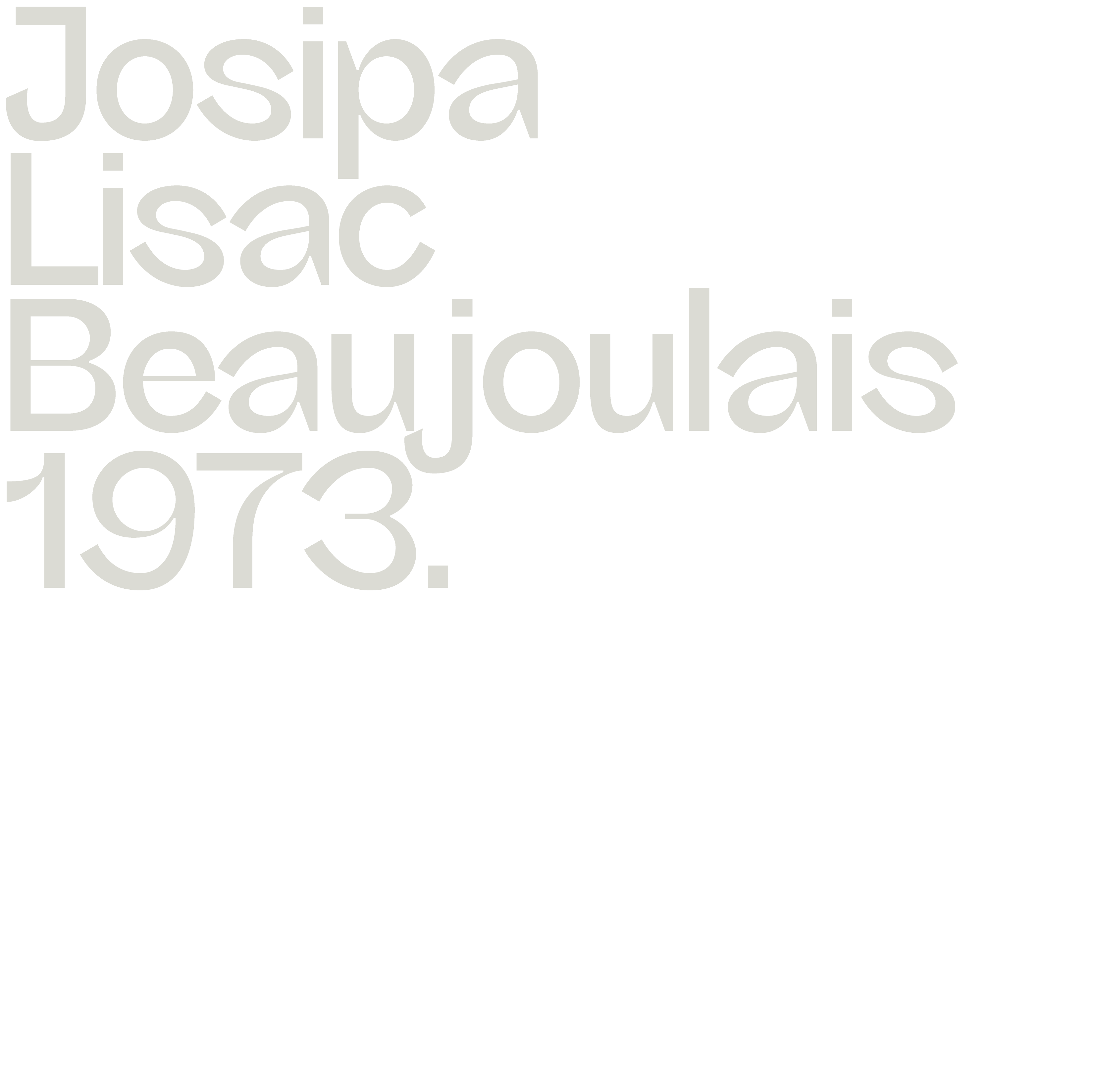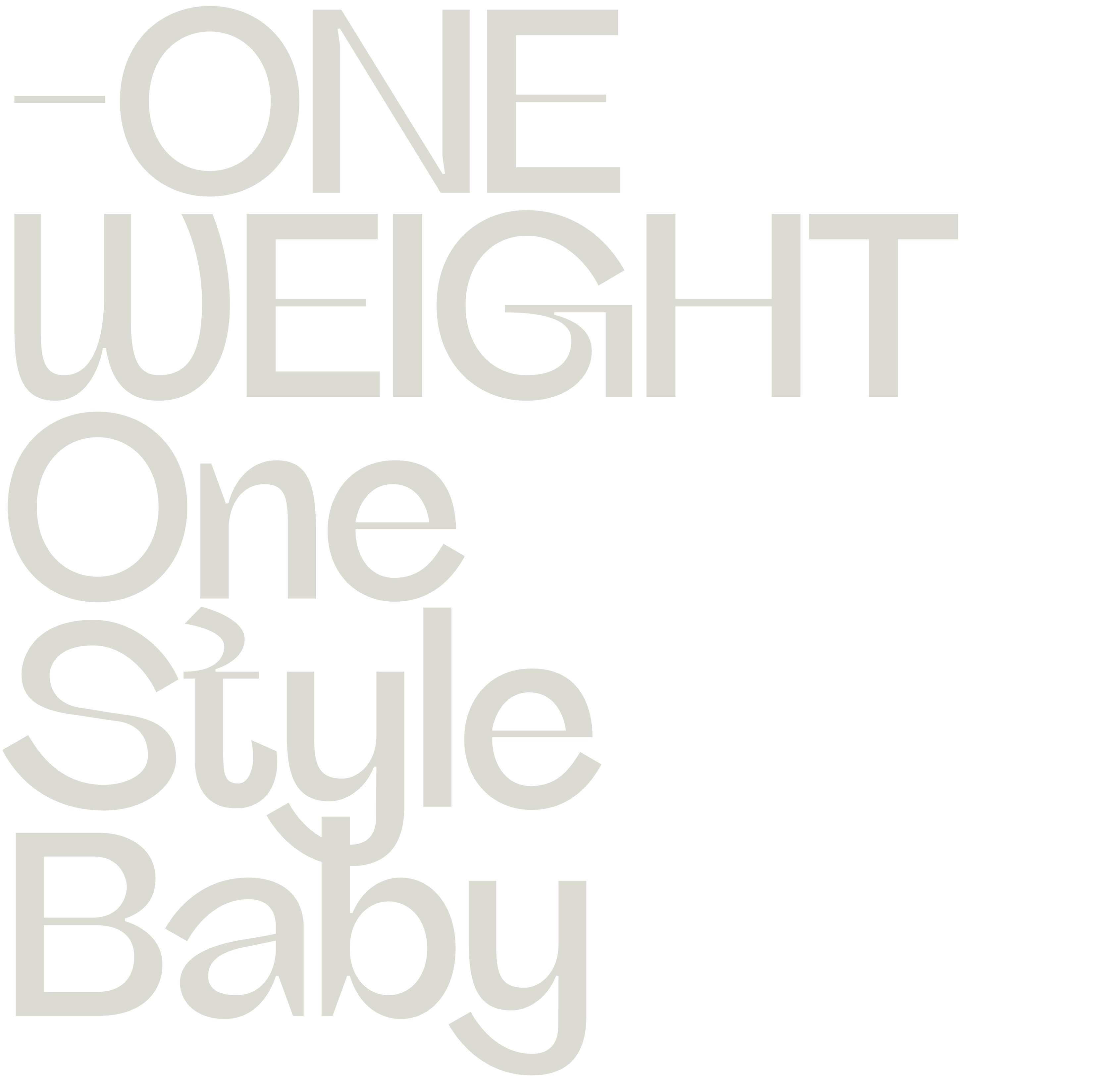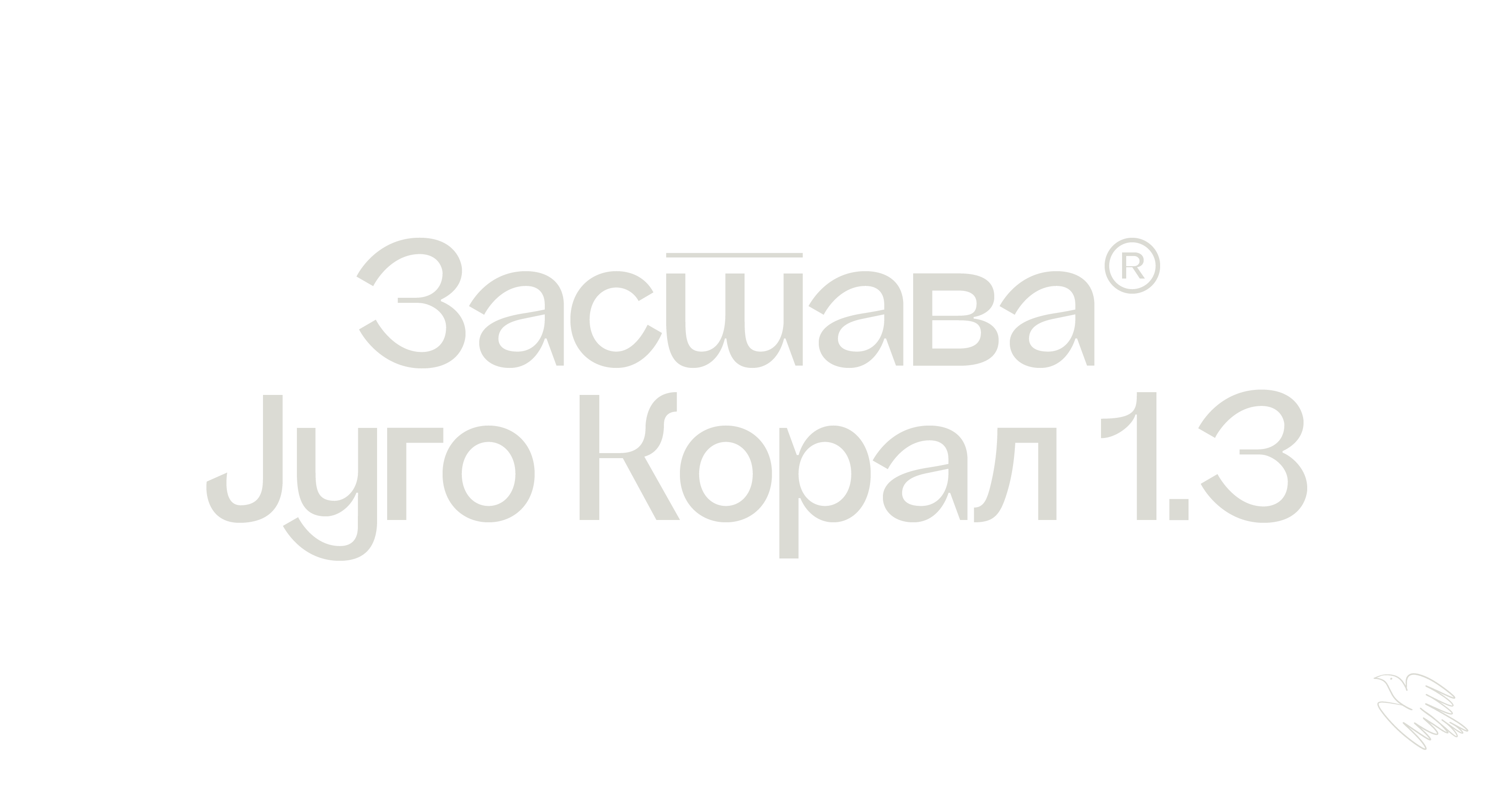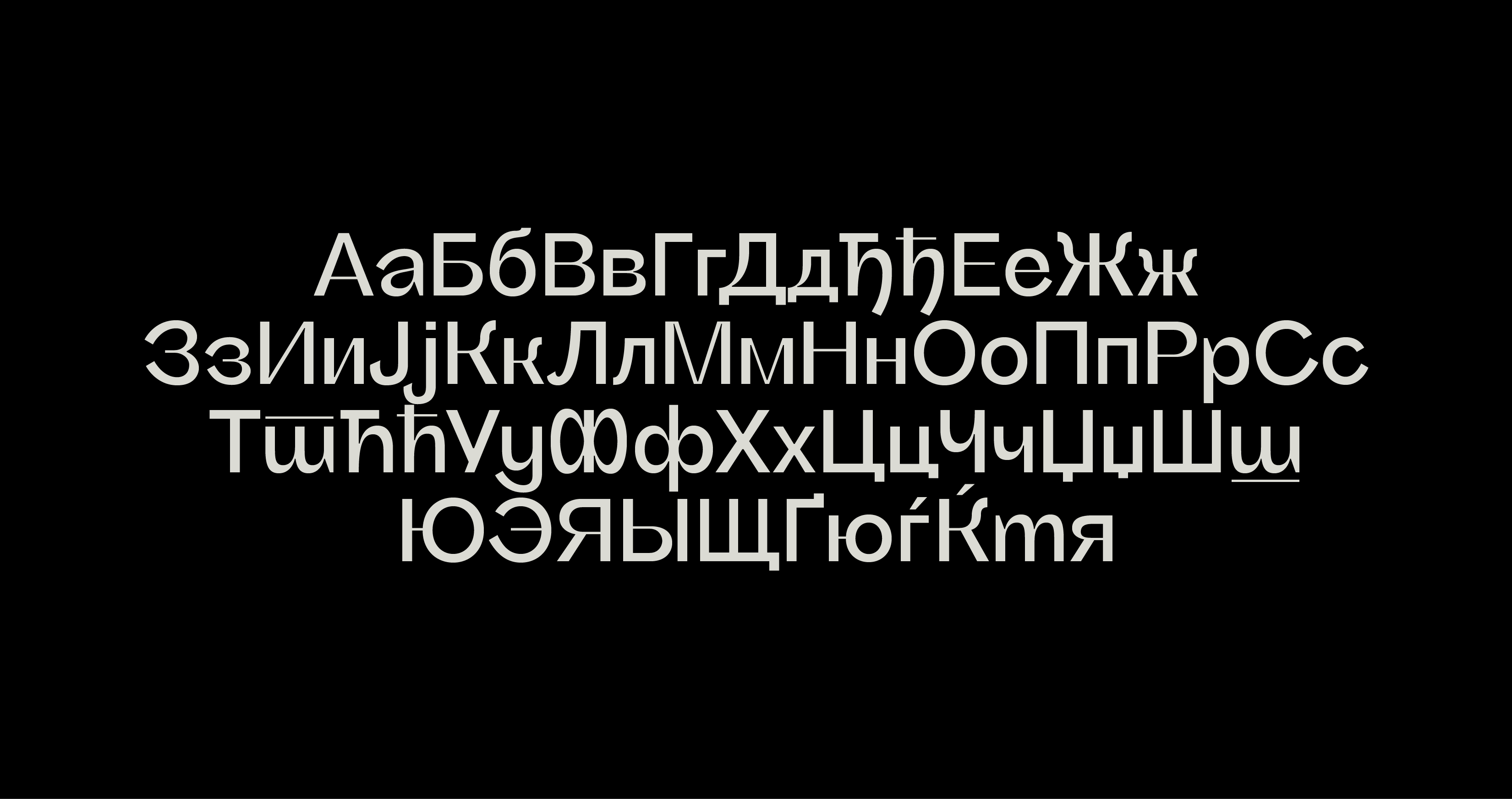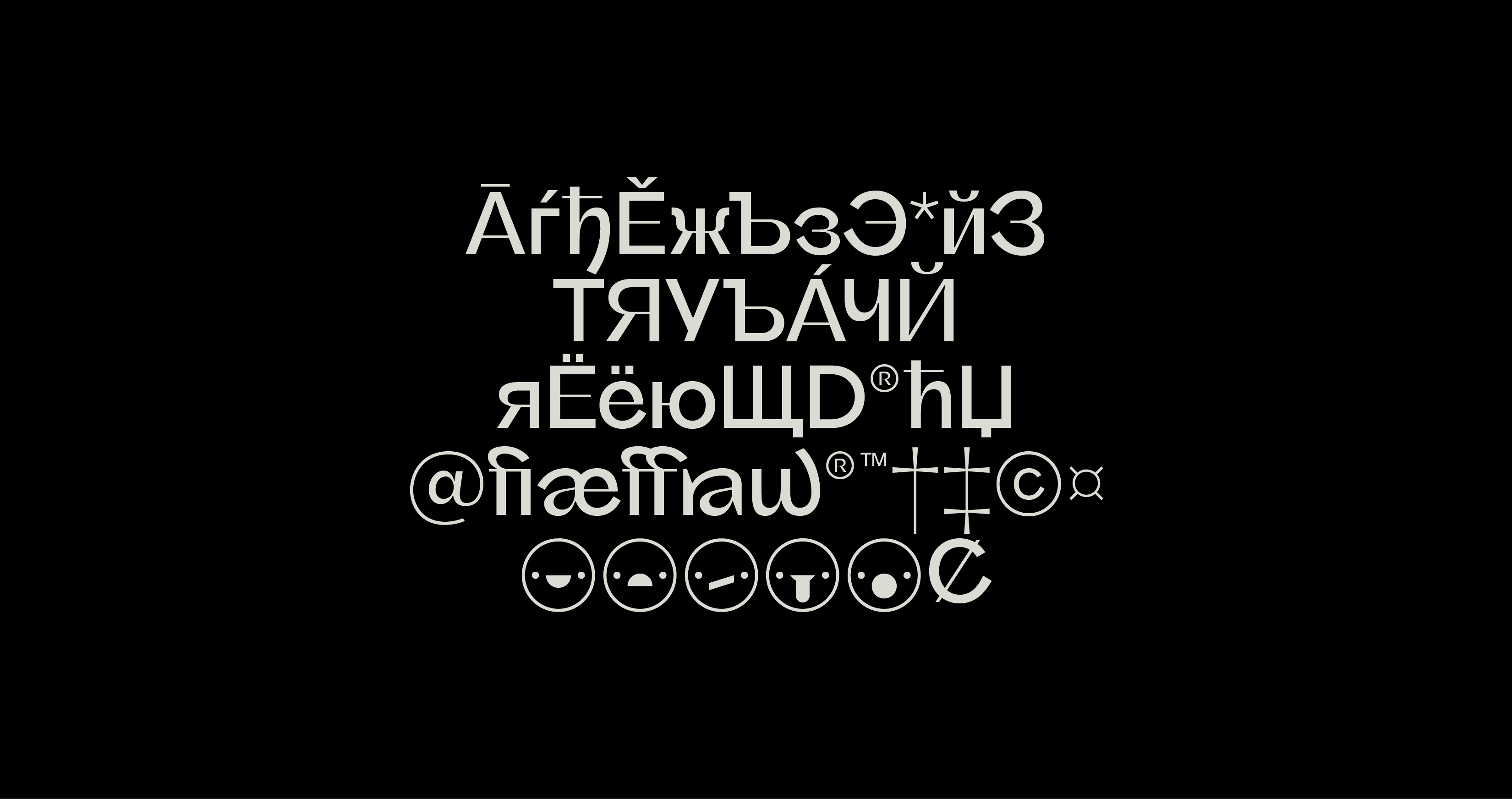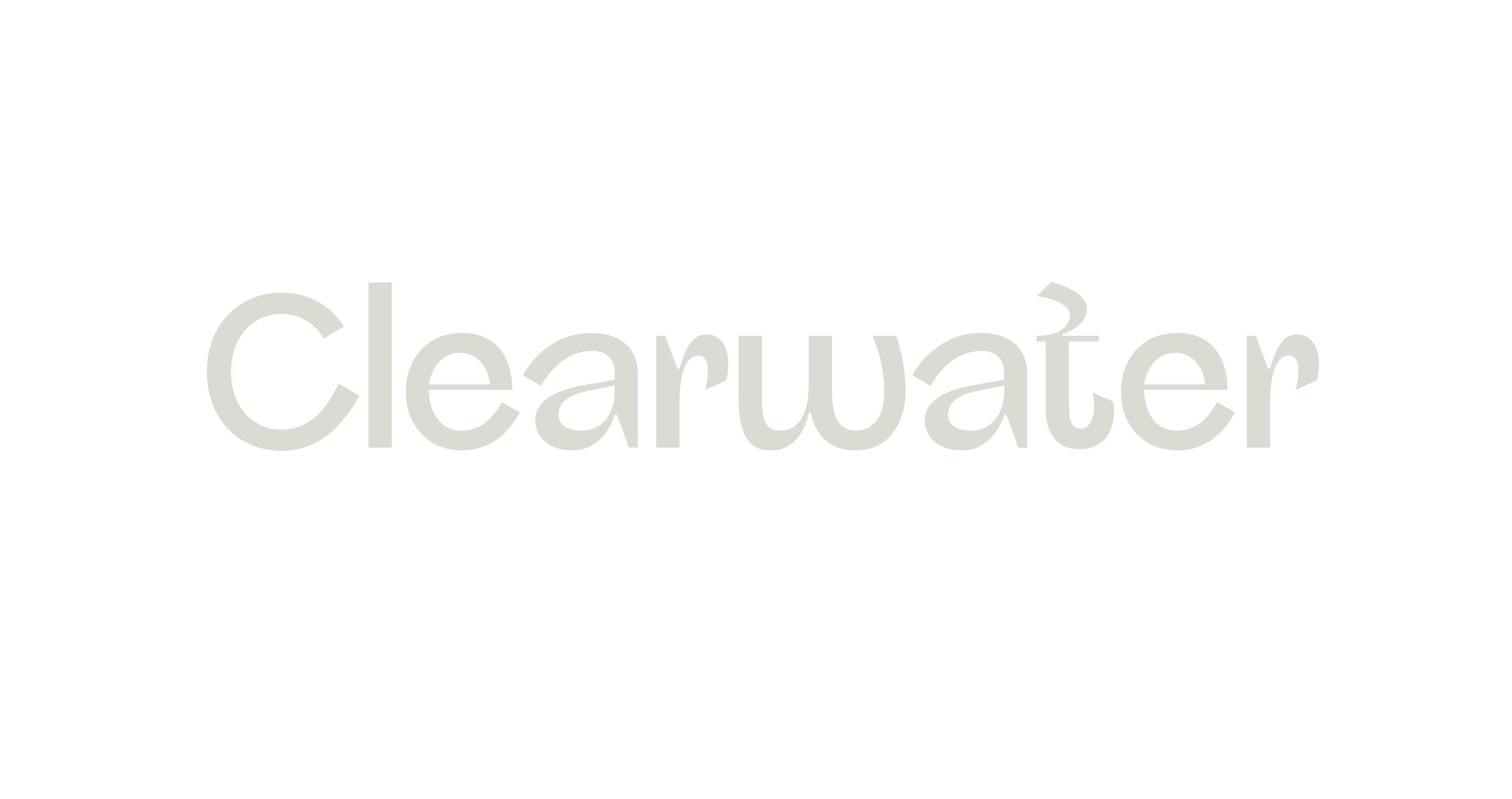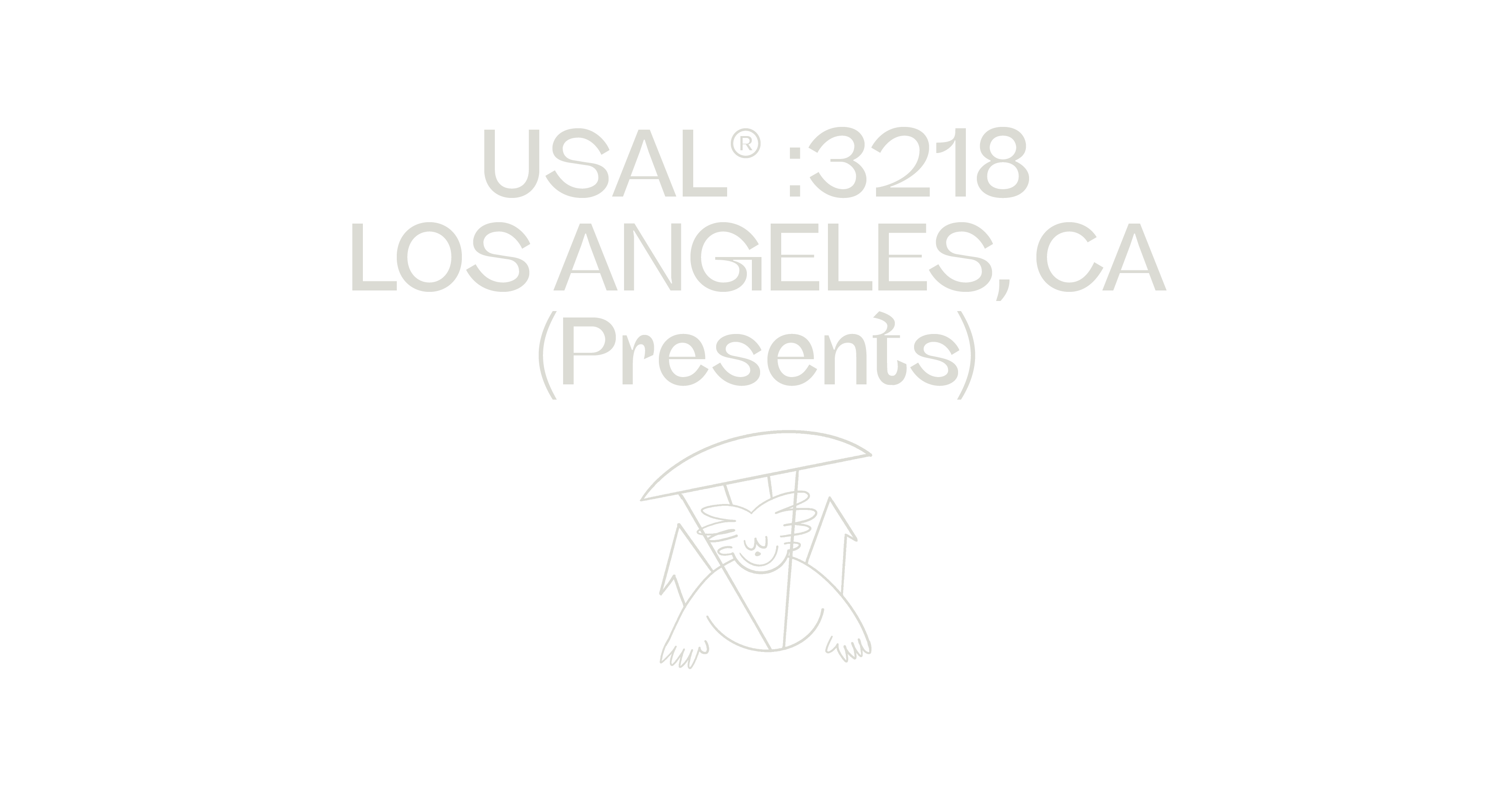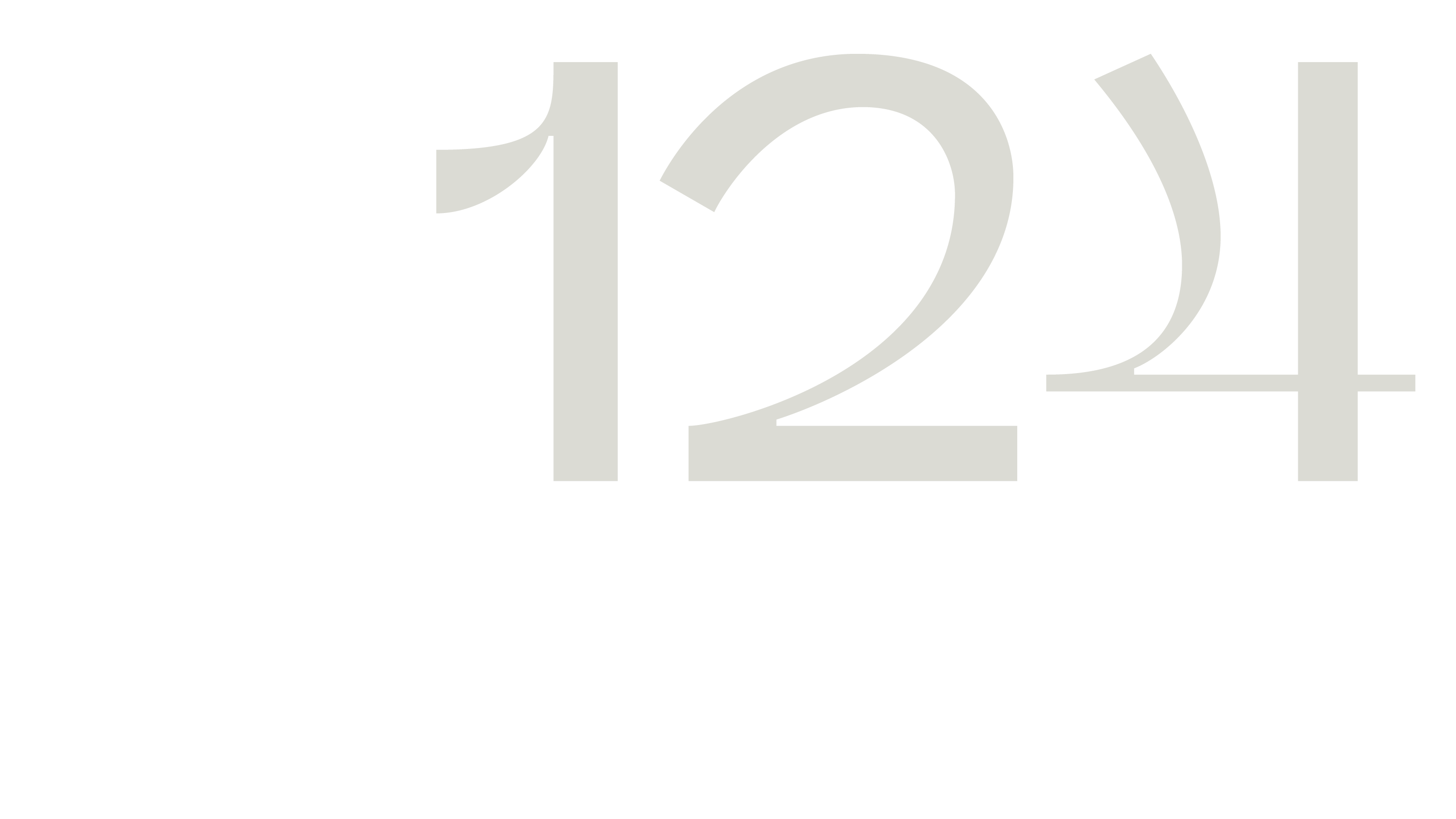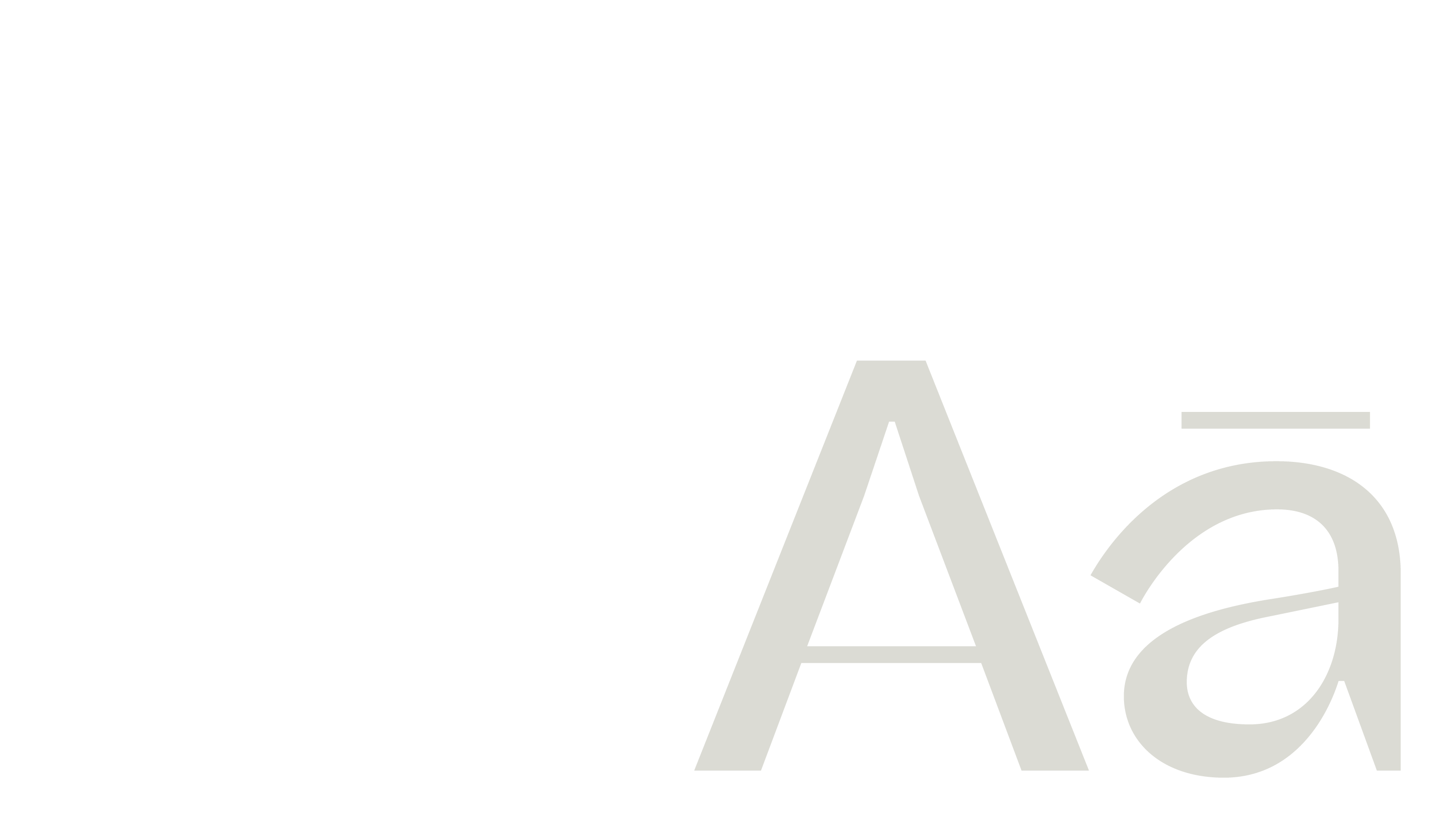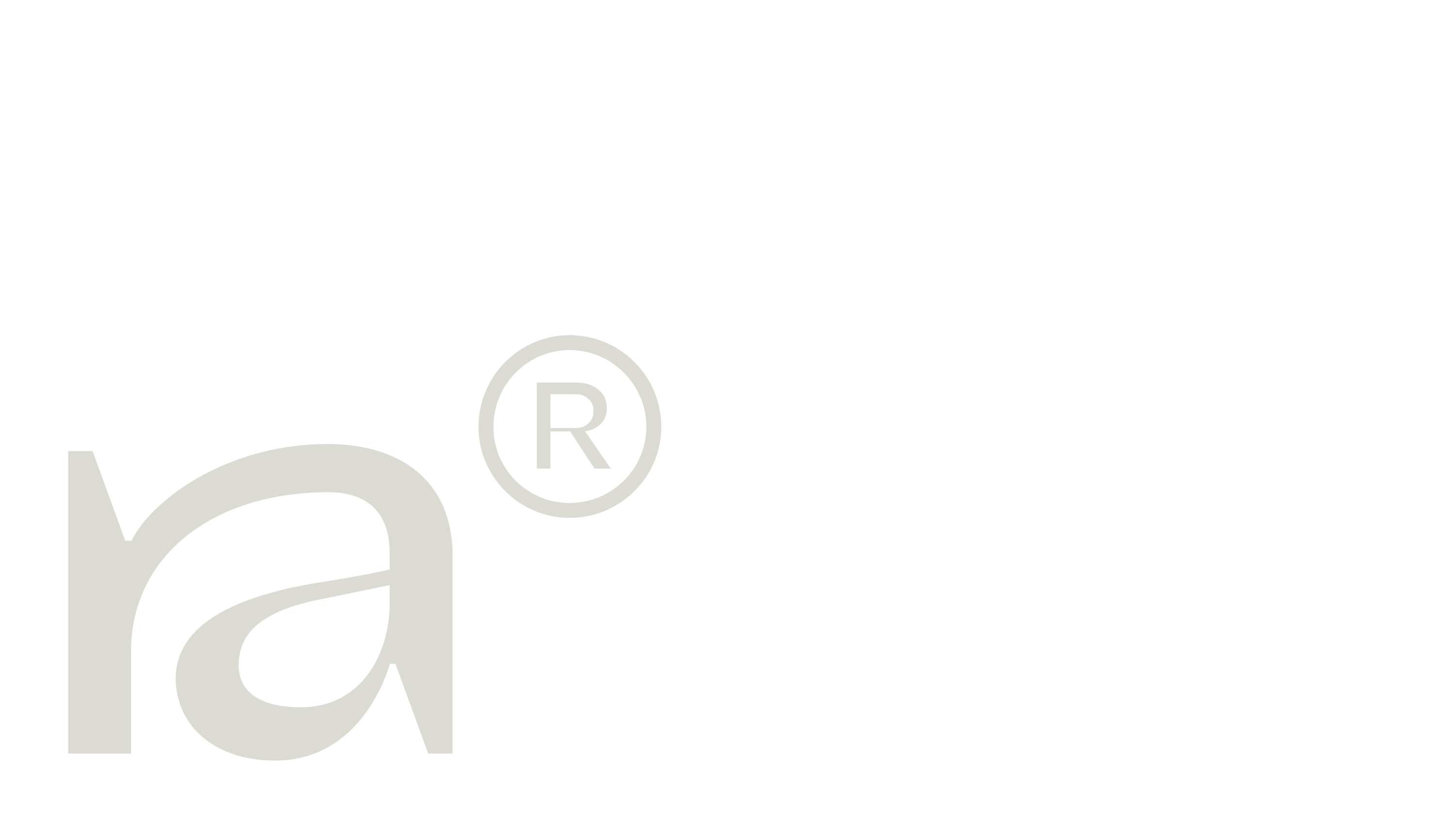
Бистра
Bistra
KS Bistra
Typeface design: Nemanja Čubrović
KS Bistra is a semi-grotesque with atypical contrast behavior, combining natural and reverse contrast within a humanist framework. Its construction features subtle ink traps, asymmetric and calligraphic curvature, lending both texture and movement. The name- KS Bistra, derived from the Serbian word for “clear” reflects its fluid, river- like morphology. With distinctive forms such as the looped “S” or weird “t,” KS Bistra balances legibility with personality, a grotesque that defies neutrality, designed for distinctive voice in editorial, branding, and mostly display contexts. You can also enhance your designs with selection of ligatures available.
KS Bistra is offered in a single weight and style by design. One cut, done right.
Latin and Cyrillic Alphabet. Ligatures and Special Characters.